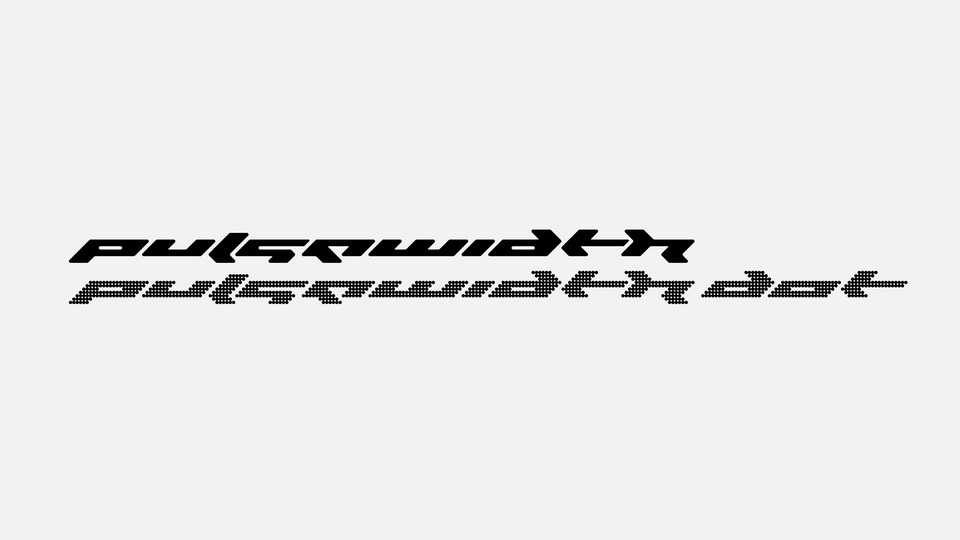
Download Pulswidth font, a display typeface based on a grid of dots inspired by dot matrix displays. The two fonts are metrically compatible and can be used in combination with one another.